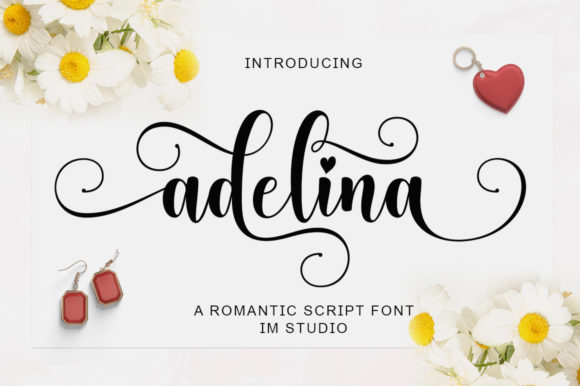
The Quest for the Perfect Script Font: Discovering Adelina Script
I still remember the time I was working on a wedding invitation project, and my client asked for a font that was both elegant and personal. I scoured the internet, tried out dozens of fonts, but nothing seemed quite right. That was until I stumbled upon Adelina Script. It was like a breath of fresh air – a subtle, handwritten script font with a classic calligraphy style that perfectly captured the essence of the occasion. In this article, I’ll share my experience with Adelina Script, and explore its features, uses, and alternatives.
An Honest Review of Adelina Script
- ✨ Classic calligraphy style: Adelina Script has a timeless, elegant feel that’s perfect for special occasions.
- ✅ PUA encoded: This means you can access all glyphs and swashes with ease, making it a breeze to customize your text.
- 💕 Versatile: Adelina Script is suitable for a wide range of projects, from greeting cards to wedding invitations, birthday cards, and more.
While Adelina Script is an excellent font, there are a few things to keep in mind:
- 🤔 Limited font weights: Adelina Script is available in a single weight, which may not be suitable for projects that require a bold or italic font.
- ⚠️ Not suitable for body text: As with most script fonts, Adelina Script is best used for headlines or short paragraphs, rather than large blocks of text.
The Story Behind Adelina Script
Adelina Script was designed with the intention of creating a font that was both elegant and approachable. The designer aimed to capture the essence of traditional calligraphy, while making it accessible to a wider range of users. The result is a font that’s perfect for special occasions, yet still feels personal and relatable.
A: PUA (Private Use Area) encoding is a way of encoding fonts that allows designers to access additional glyphs and swashes. This means that with Adelina Script, you can easily access a wide range of characters and customize your text.
Q: Is Adelina Script suitable for body text?
A: No, Adelina Script is best used for headlines or short paragraphs. As with most script fonts, it’s not suitable for large blocks of text.